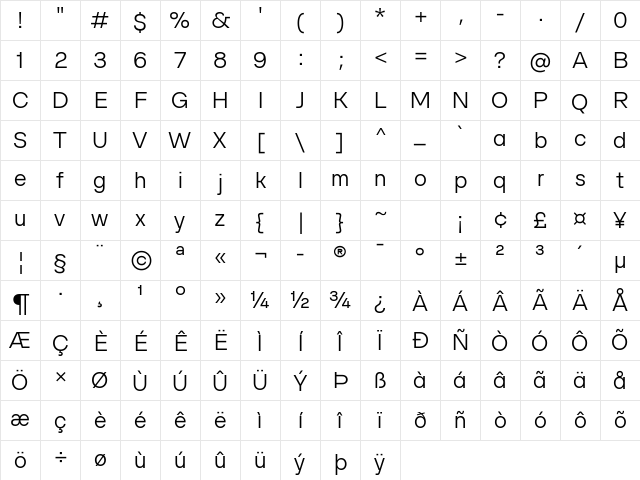
Complete SFT Schrifted Sans TRIAL Light Comp glyph index. Displaying only characters natively supported by SFT Schrifted Sans TRIAL Light Comp font.
SFT Schrifted Sans TRIAL is a composed and adaptable typeface that performs quietly and consistently across a wide range of design contexts. Its slender proportions lend an understated elegance to any composition.
Who designed the SFT Schrifted Sans TRIAL Light Comp font?